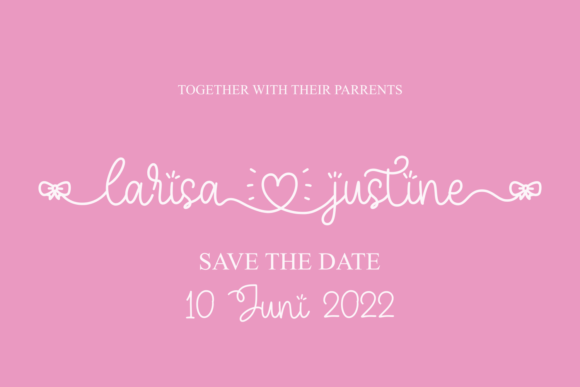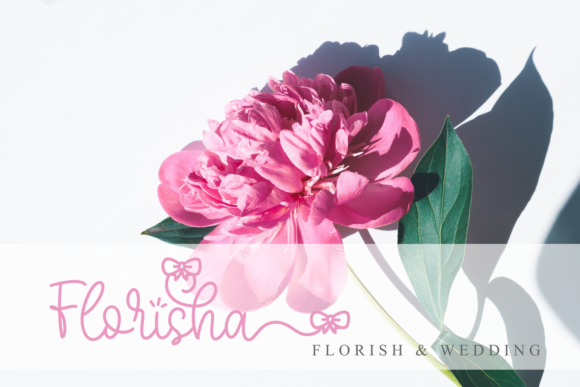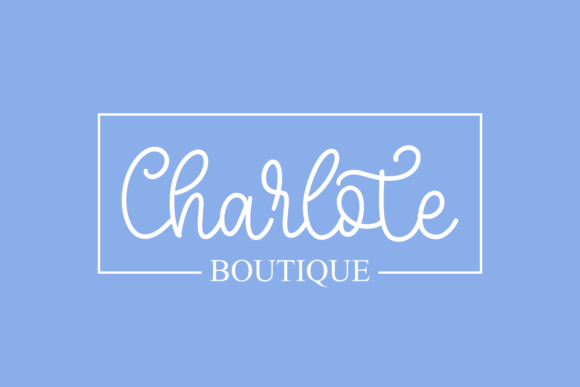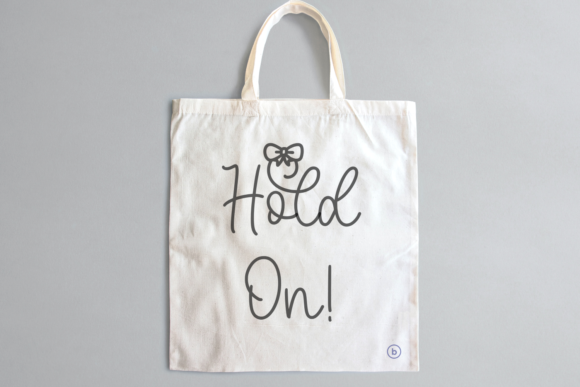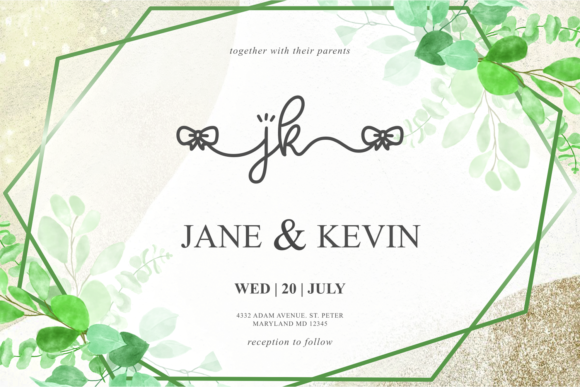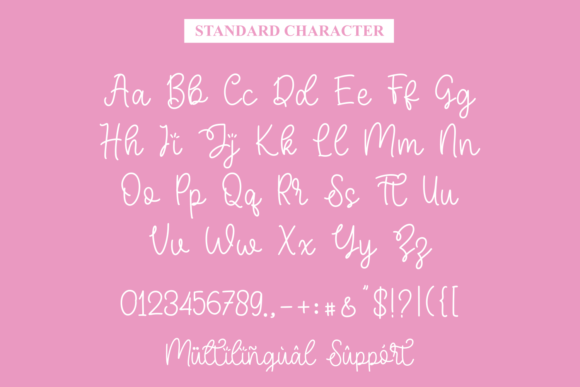
The Sweet Charm of Bachelar Font: A Designer’s Delight
I’ll never forget the moment I stumbled upon Bachelar Font while working on a wedding invitation project for a client. I had been searching for the perfect handwritten font to capture the sweet and romantic feel of the couple’s special day, but everything I found seemed either too fancy or too bland. That was until I saw Bachelar Font – its elegant, cursive strokes and whimsical flair instantly won me over. In this article, I’ll share my love for this beautiful font, its features, and how to make the most of it in your designs.
An Honest Review of Bachelar Font
What I Love About Bachelar Font
- ✨ Incredibly versatile style: Bachelar Font is perfect for a wide range of design projects, from wedding invitations and stationery to social media posts and more.
- ✅ Beautifully crafted: The font’s handwritten style is elegant, yet approachable, making it perfect for designs that require a personal touch.
- 💕 Emotional connection: Bachelar Font has a way of evoking emotions and creating a connection with the reader, making it ideal for projects that require a sentimental tone.
While Bachelar Font is an amazing font, it’s not without its quirks. For example:
- 🤔 Limited use in body text: Due to its elegant and cursive nature, Bachelar Font might not be the best choice for long body text. It’s better suited for headings, titles, and short paragraphs.
- ⚠️ Requires attention to spacing: As with any handwritten font, Bachelar Font requires attention to spacing to ensure it looks its best. This might take some time to get used to, especially if you’re new to working with script fonts.
- Experiment with OpenType features like ligatures and stylistic alternates to add more flair to your text.
The Backstory of Bachelar Font
Bachelar Font was designed with love and care by a talented type designer who wanted to create a font that would evoke emotions and create a connection with the reader. The font’s elegant and cursive style is inspired by traditional handwriting and is perfect for designs that require a personal touch.
| Font Name | Bachelar Font |
| Author | kammaqsum |
Q: What is Bachelar Font best used for?
A: Bachelar Font is best used for designs that require a personal touch, such as wedding invitations, stationery, and social media posts.
Q: Is Bachelar Font suitable for body text?
A: While Bachelar Font is beautiful, it’s not ideal for long body text. It’s better suited for headings, titles, and short paragraphs.